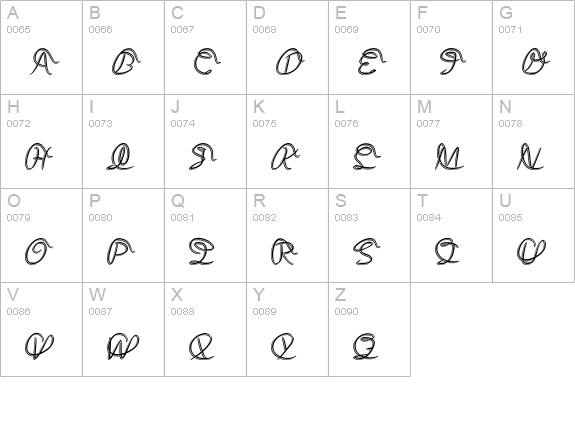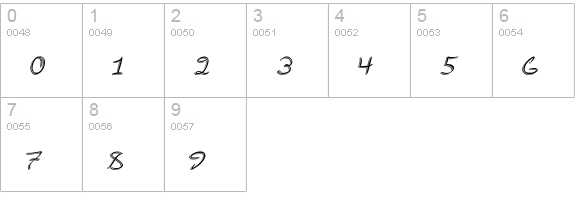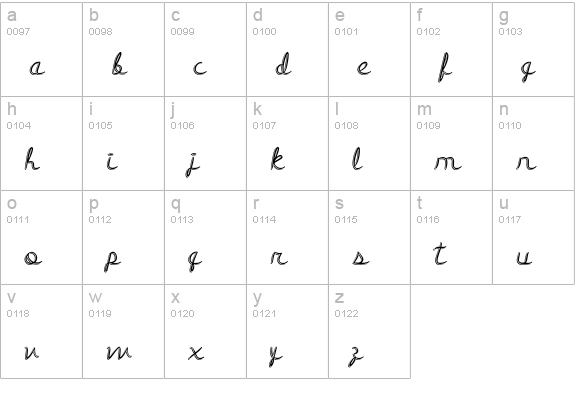
Medley_Script Font Details
Medley_Script is a stunningly beautiful font that will add a touch of elegance and sophistication to any design project. Its flowing and graceful letterforms create a sense of harmony and balance, making it perfect for wedding invitations, branding materials, and other high-end projects. With its delicate strokes and intricate details, Medley_Script exudes a timeless charm that is sure to captivate your audience. Whether used in print or digital media, this font will effortlessly elevate the overall aesthetic and make a lasting impression. One of the best features of Medley_Script is that it is not only visually appealing but also incredibly versatile. It can be easily paired with a wide range of typefaces, making it a great choice for creating unique and personalized designs. Whether you want to create a romantic and whimsical feel or a modern and sleek look, this font will adapt to your needs effortlessly. And the best part? Medley_Script is available for free download at FontsMarket.com! Yes, you read that right, this exquisite font can be yours at no cost. FontsMarket.com is a trusted source for high-quality fonts, and they are excited to offer Medley_Script as a free download to their users. Don't miss out on the opportunity to enhance your designs with this gorgeous font. Download Medley_Script today and let its beauty and elegance take your projects to new heights.